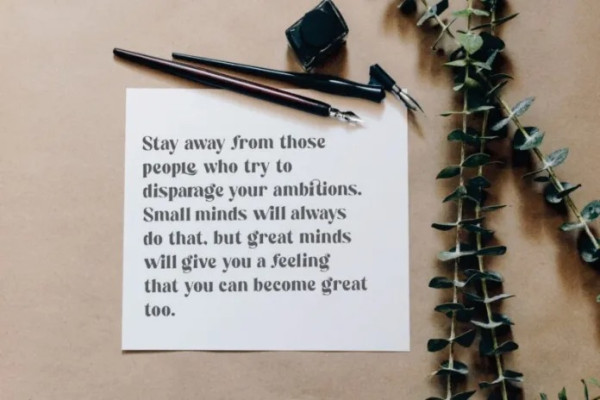
Battle Magic Font
Battle Magic Font is an elegant modern groovy and bold font created by Forty Font with unique styles. It is well-suited for advertising, branding, logotypes, packaging, titles, headlines and editorial design. I created more much alternates variant and much natural ligatures to make this font very classy and look so beauty. BattleMagic was built with openType features make your project will be perfect.